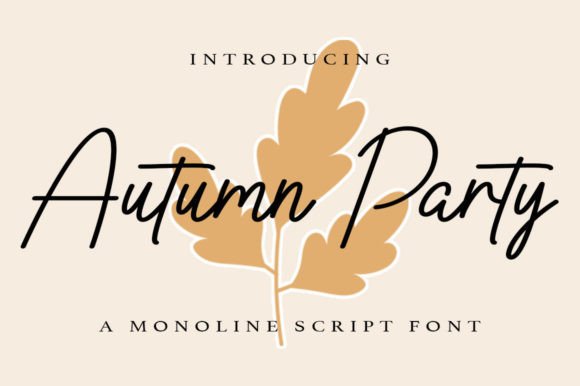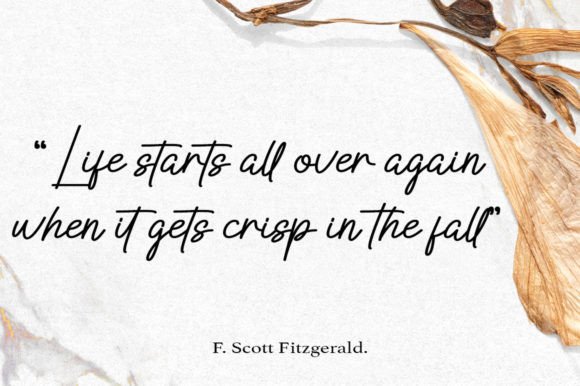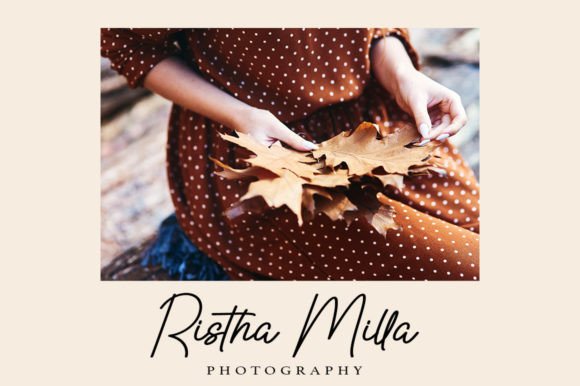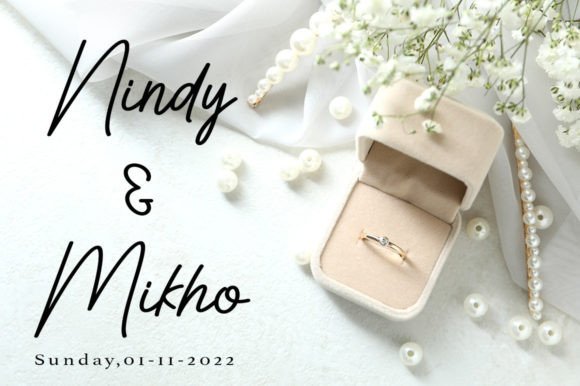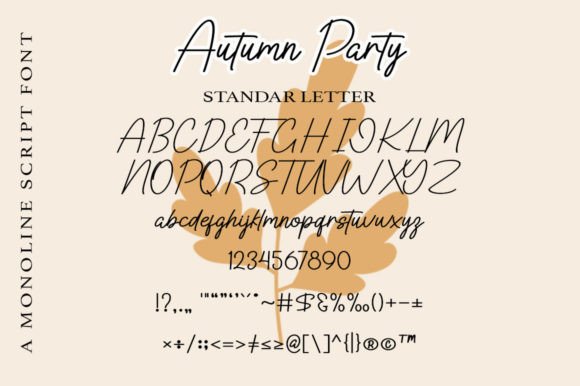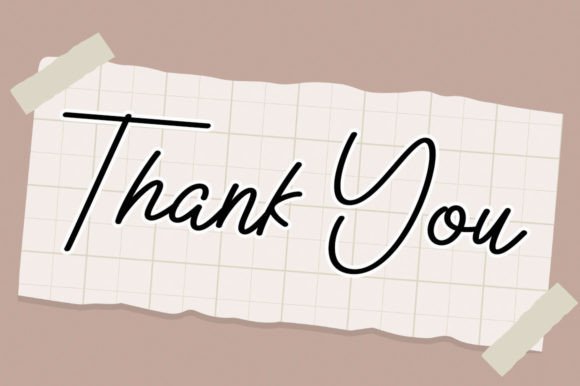
Autumn Party Font
Introducing Autumn Party Font
The Autumn Party Font is an elegant script typeface designed to bring a touch of sophistication and beauty to your creative projects. Characterized by its balanced and varied design, this font is a versatile choice for a wide range of design applications. Its appeal lies in its ability to convey elegance without being overly thin or thick, striking a harmonious balance.
Why Choose This Typeface?
• Elegant and Balanced: Autumn Party enhances the aesthetics of your projects, making it suitable for branding, invitations, stationery, advertising, and more.
• Versatile Usage: This font provides a visually appealing choice for various creative endeavors, allowing you to infuse your designs with sophistication and style.
Applications of Autumn Party
• Branding: Use this font to create elegant branding materials that capture attention.
• Invitations: Enhance your invitations with a sophisticated style that conveys elegance.
• Stationery: Perfect for adding a stylish script aesthetic to stationery and other creative projects.
The Impact of Using Autumn Party
This font elevates your designs by making them visually captivating and memorable. It becomes a reliable tool for designers seeking to create projects that stand out with elegance. Its balanced form ensures your designs are both refined and captivating.
The Value It Brings
This typeface excels in combining contemporary design aesthetics with classic elegance. By choosing Autumn Party, you ensure your designs are not only visually appealing but also sophisticated and unique. Additionally, its PUA encoding allows easy access to all glyphs and swashes for added customization.
This font is also ideal for various creative projects beyond traditional uses. It can enhance digital designs with its elegant flair, making it suitable for websites, brochures, or mobile interfaces. The Autumn Party Font adapts well to different screen sizes while maintaining its charm. As design trends evolve, this font remains relevant due to its timeless appeal, balancing style with functionality effectively.